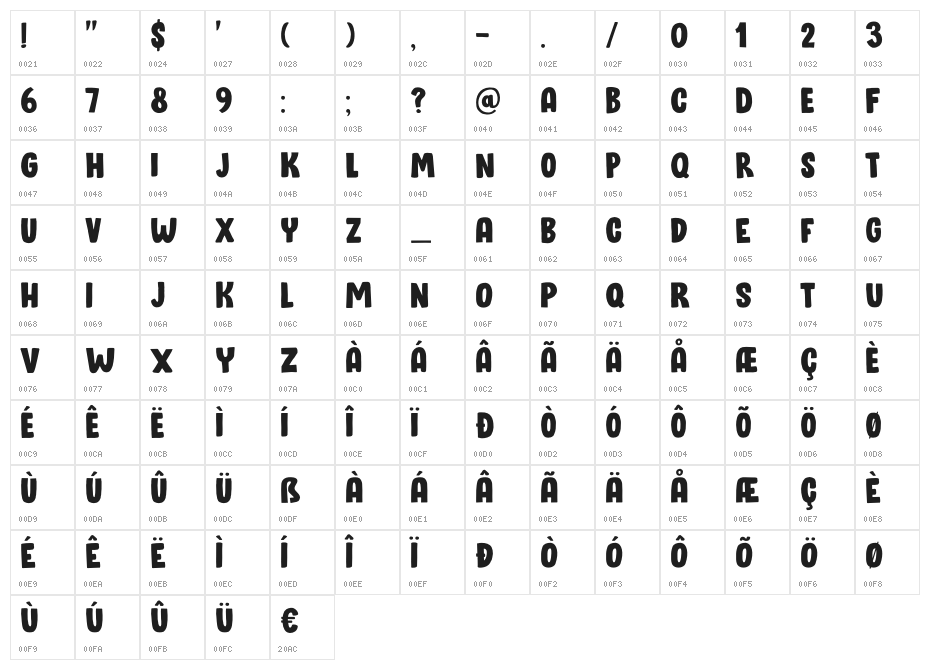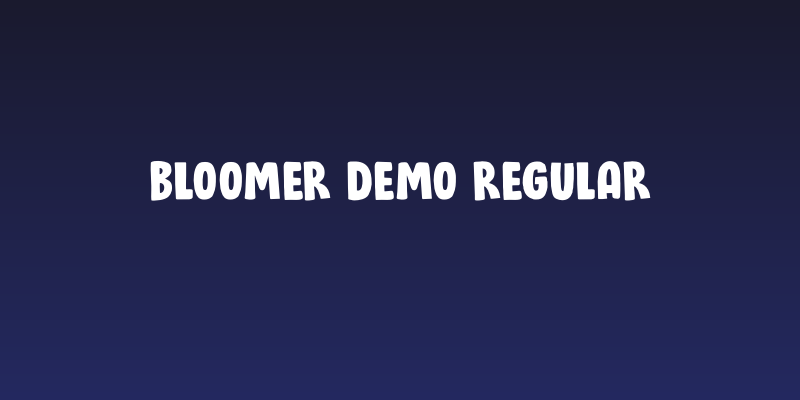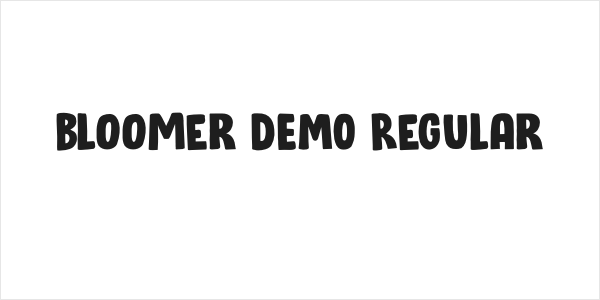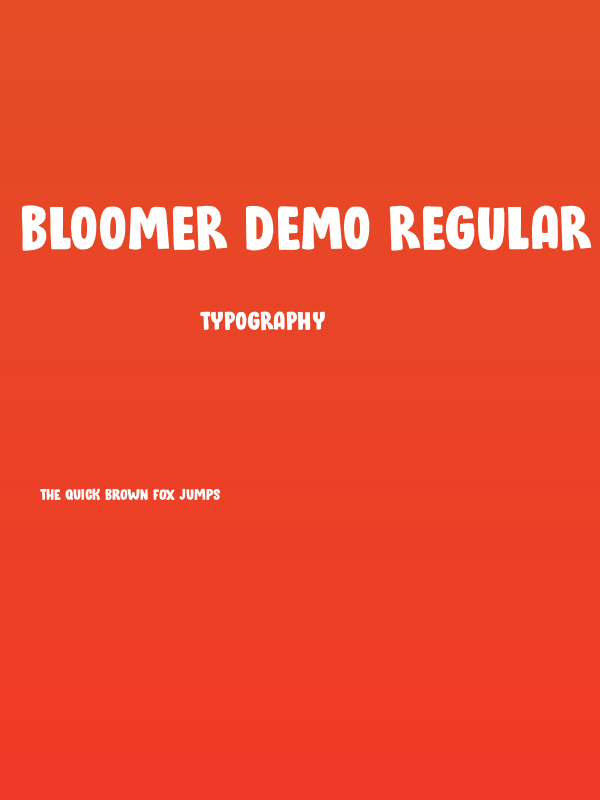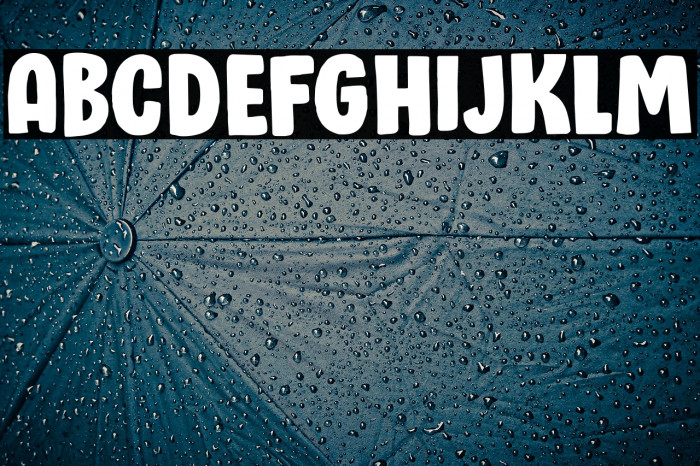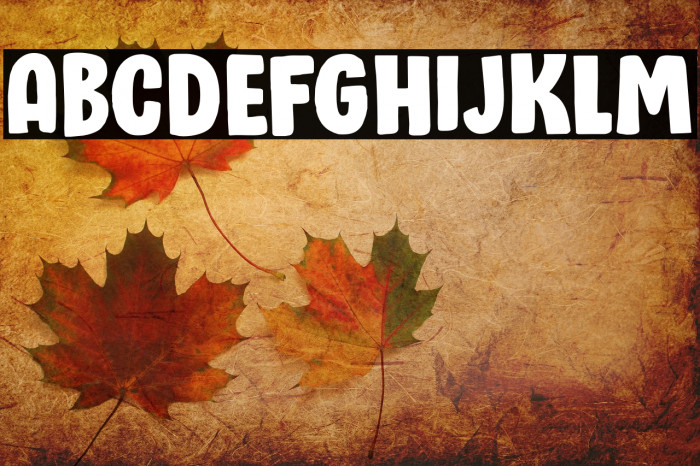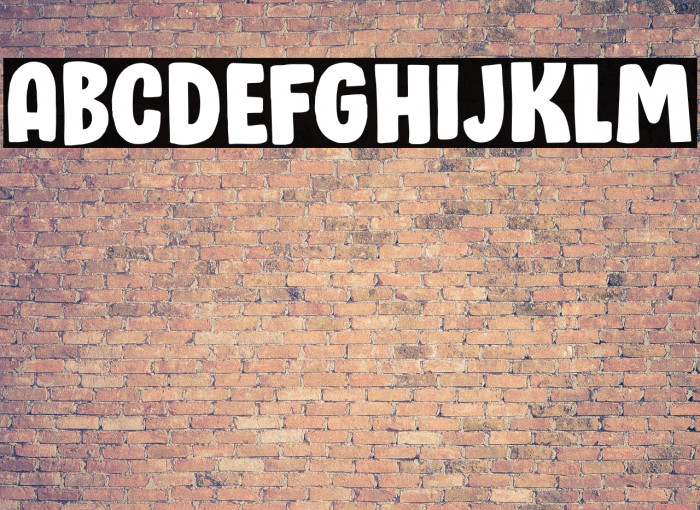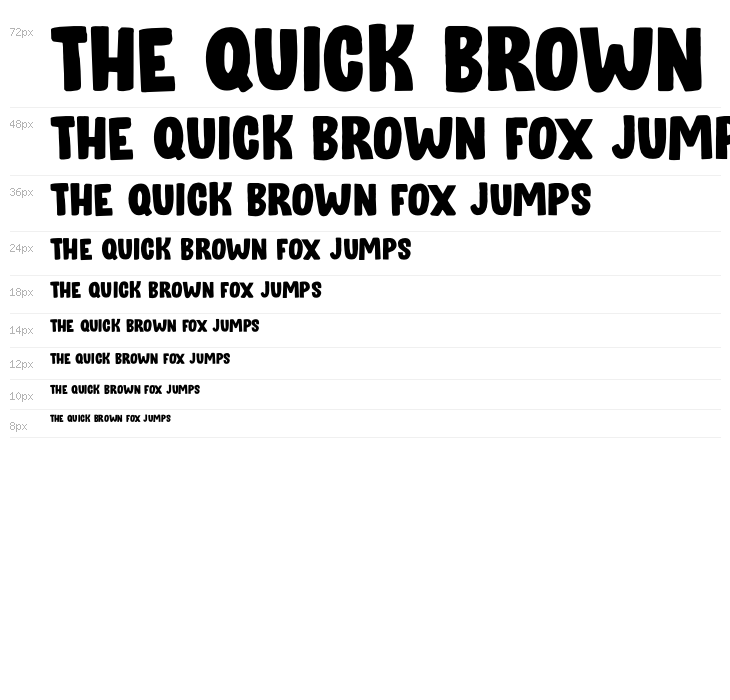
Bloomer DEMO Regular Font
Bloomer DEMO Regular Description
This font features a bold and playful design, characterized by thick, rounded strokes that give it a friendly and approachable appearance. The letters are slightly condensed, with a consistent weight throughout, creating a uniform and cohesive look. The uppercase and lowercase characters maintain a similar style, ensuring readability and visual harmony. The numerals and special characters are designed to match the overall aesthetic, making them suitable for various applications. The font's unique style makes it ideal for projects that require a touch of whimsy and creativity.
| Overall Style | Playful, Creative |
| Proposed Projects | Ideal for children's books, playful branding, posters, and creative packaging. |